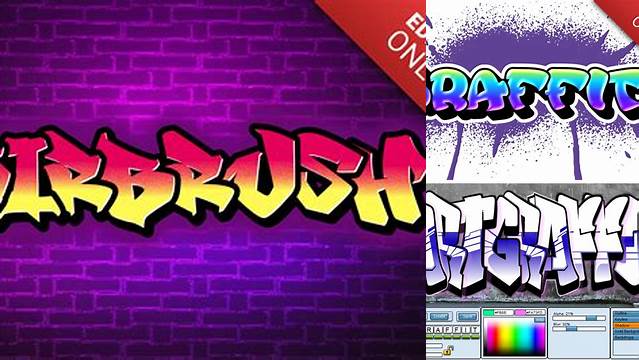
Free Graffiti Airbrush Font Generator: Create Awesome Text
Alright, guys, let's dive into the super cool world of crafting killer text with a free graffiti airbrush font generator! Whether you're a seasoned street artist, a design newbie, or just someone who digs the vibe, this is your go-to guide. We're talking about creating those rad, spray-paint-style fonts that scream attitude and style. No need to spend a fortune – we're focusing on the free options that deliver top-notch results. Get ready to level up your designs, social media posts, and maybe even your actual street art game. Let's get started!
H2: Unleashing Your Creativity: Why Use a Graffiti Airbrush Font Generator?
So, why bother with a graffiti airbrush font generator? Well, the answer is simple: it opens up a whole new realm of creative possibilities. Think about it – you're not just typing text; you're making a statement. Graffiti fonts have this inherent energy, this rebellious edge that can instantly grab attention. And with a generator, you don't need to be a skilled artist to achieve that look. You can create logos, posters, social media graphics, or even personalize your everyday items. The best part? It's incredibly versatile. You can use it for anything from creating a cool nameplate for your online persona to designing a killer flyer for a local event. It is also a time saver; instead of painstakingly hand-drawing each letter, a generator gives you instant results. This allows you to experiment with different styles and effects in seconds, letting your creativity flow freely. The strong aesthetic appeal is another key factor. Graffiti fonts bring a unique visual language, instantly injecting personality and visual interest into any project. Imagine the impact: a bland website transformed into a bold and vibrant showcase. A simple social media post that grabs attention with its distinctive flair. It's about expressing yourself uniquely. Furthermore, many generators offer customization options, allowing you to tweak your fonts. You can change colors, add drop shadows, adjust the size, and even simulate the airbrush effect's iconic spray paint. This level of control makes the generator an extremely powerful tool for everyone. It's about having fun, experimenting, and letting your creative spirit soar. So, why not give it a try? You have nothing to lose and a whole world of creative exploration to gain.
H3: The Allure of Graffiti Fonts: What Makes Them So Appealing?
What is it about graffiti fonts that just clicks? Why do they resonate so strongly with people from all walks of life? Let's get down to the nitty-gritty of what makes these fonts so captivating. Firstly, there's the raw, untamed energy they exude. These fonts aren't about polished perfection; they're about attitude. They have a boldness that demands attention. They embody a sense of rebellion and non-conformity that many people are drawn to. This is because graffiti has its roots in counter-culture, making it a symbol of resistance and individuality. Secondly, graffiti fonts often have a unique visual style that can't be found elsewhere. They are far from standard, cookie-cutter options, bringing a specific aesthetic that stands out. The dripping, the spray-paint effect, the sharp angles, and the bold outlines – these elements make them instantly recognizable and visually arresting. Graffiti fonts have transcended their origins. They are no longer confined to the streets, finding a home in the mainstream. They're used in advertising, graphic design, branding, and even fashion. This widespread adoption is a testament to their effectiveness and their ability to resonate with a broad audience. Ultimately, graffiti fonts offer a way to express yourself, to make a statement, and to stand out from the crowd. They are a celebration of individuality, creativity, and self-expression. They're a vibrant reminder that art can be found anywhere, and that anyone can be creative.
H2: Finding Your Perfect Font: Top Free Graffiti Airbrush Font Generators
Okay, so you're ready to find your perfect graffiti airbrush font generator, but with so many options, where do you start? Don't worry, I've got you covered. Here's a rundown of some top-notch free tools that will help you create those killer designs. Keep in mind that the availability and features of these generators might change, so it's a good idea to explore and see which one best suits your needs. Many of these tools are web-based, meaning you can access them directly from your web browser without any downloads or installations. This convenience makes them super accessible. They typically offer a user-friendly interface with simple controls for inputting your text and customizing the font. Most generators let you choose from a selection of pre-designed graffiti fonts, offering a quick way to achieve the desired look. Some also allow you to customize elements, like color, size, and effects like drop shadows. However, always pay attention to licensing. Some fonts may be free for personal use but require a license for commercial projects. If you are planning to use your creations for commercial purposes, always check the terms and conditions. Some popular options to explore include websites that offer downloadable fonts or dedicated online generators. The best tool is the one that inspires you, so don't be afraid to experiment and find your perfect match. Remember that there's no one-size-fits-all solution. The key is to find a tool that resonates with your style and helps you bring your creative vision to life.
H3: Evaluating Generator Features: What to Look For
So, you're on the hunt for a graffiti airbrush font generator, but how do you know which ones are the best? Let's break down the key features you should be looking for to ensure you get the most out of your creative endeavors. First and foremost, user-friendliness is key. The interface should be intuitive and easy to navigate, allowing you to quickly input your text and customize the font without a steep learning curve. The ideal generator will offer a variety of pre-designed graffiti fonts, giving you a solid starting point. The more options available, the better. It's even more impressive if the generator provides customization options. This allows you to tailor the font to your specific needs and preferences. Look for controls to adjust color, size, spacing, and effects like drop shadows or spray-paint textures. Consider the output options. Can you download the font as an image file (like PNG or JPG)? Ideally, you should be able to download the font in a format suitable for your projects, such as vector files (like SVG) for scalable designs. The generator's licensing is also important. Is the font free for personal or commercial use? Make sure you understand the terms and conditions. Check for additional features like the ability to save your designs or preview your work in various contexts. Some generators offer advanced features like animated effects or the ability to create custom font styles. Ultimately, the perfect generator is one that aligns with your needs, offers the features you want, and allows you to bring your creative vision to life easily. So, take your time, explore your options, and choose the tool that sparks your creativity.
H2: Diving Deeper: Customization Options and Creative Effects
Once you've got your graffiti airbrush font generator up and running, it's time to explore the exciting world of customization. It's not just about picking a font; it's about making it your own. Most generators offer a range of customization options that can transform your text from generic to genuinely unique. Color is an obvious place to start. Experiment with a vibrant palette, from classic spray-paint colors to bold, eye-catching hues. Consider using gradients or blending multiple colors for added visual interest. The size and scale of your text can also significantly impact the overall feel. Make it big and bold to grab attention, or adjust the proportions to fit your design. Spacing is another important detail. Tighten the spacing for a more compact look or spread the letters out to create a sense of movement. Next, consider adding effects. Drop shadows are a classic graffiti technique, creating a sense of depth and dimension. The right shadow can make the text pop off the page. Some generators offer more advanced effects, such as outlines, textures, or spray-paint effects. Don't be afraid to experiment. Blend different effects to see what works best. One often-overlooked customization option is the ability to use pre-made textures. This can replicate the feel of real-world graffiti. It's about exploring and finding what works best for your specific project. Embrace the possibilities, play around with different combinations, and most importantly, have fun.
H3: Mastering the Spray-Paint Look: Replicating Authentic Graffiti Styles
One of the key appeals of a graffiti airbrush font generator is its ability to authentically replicate the spray-paint aesthetic. Let's delve into how to achieve that realistic look and truly capture the essence of street art. The first thing is to examine the style of graffiti you want to achieve. Real graffiti comes in a wide array of styles. Some fonts are bold and blocky, while others are more elaborate and expressive. Research different artists and styles to inspire your work and tailor your choices. The realistic spray-paint effect is often characterized by several unique traits. These include soft edges, slight imperfections, and the illusion of depth. This is where customization options become crucial. Look for generators that allow you to add a subtle blur or feathering to the edges of your text to mimic the effect of spray paint. Drop shadows are key, creating the illusion that the letters are popping off the surface. Experiment with different shadow colors, angles, and opacities to achieve the right effect. Textures are also essential. Generators may offer built-in textures that simulate the gritty look of a wall or the imperfections of spray paint. If not, you can add textures in post-production using image editing software. Consider the color choices you make. Graffiti artists often use vibrant and contrasting colors to make their work pop. Pay attention to the details of how the paint would naturally behave. In real life, spray paint can drip, fade, and interact with the surface. Replicating these small imperfections will enhance the realism. Don't just stop at generating text; think about the context. Where would this graffiti be on the street? It's about embracing the imperfections, the boldness, and the unique character of street art.
H2: Putting It to Work: Project Ideas for Your Graffiti Fonts
Now that you're armed with your graffiti airbrush font generator and a knack for customization, let's get those creative juices flowing with some cool project ideas. There are a ton of exciting ways to use your newly created fonts. One of the easiest and most effective applications is for social media graphics. Design eye-catching posts for Instagram, Facebook, or other platforms to grab attention and make your content stand out. A bold graffiti font can be used to create captivating profile pictures, banners, or even quote cards. Next, think about posters and flyers. Design promotional materials for events, concerts, or anything that needs to get noticed. Graffiti fonts are perfect for conveying a sense of energy, excitement, and street-level authenticity. If you're passionate about music, consider designing album covers or promotional artwork. Graffiti fonts can capture the rebellious spirit of rock, hip-hop, or electronic music. Create unique invitations for parties or special occasions. The bold and distinctive look of graffiti fonts can inject a sense of fun and personality into your invitations. Beyond the digital realm, consider using your fonts for physical projects. Print your designs on t-shirts, mugs, or other merchandise. It is another awesome opportunity. You can also design stickers, stencils, or wall art for your room or workspace. Graffiti fonts are perfect for personalizing your space. Experiment with mixing your fonts with different art forms. This will allow you to explore more project opportunities. You can combine your graffiti fonts with photography, illustration, or other graphic design elements to create unique and visually stunning compositions. From social media to merchandise to physical art, the possibilities are nearly endless. Let your imagination run wild, experiment with different ideas, and bring your creative vision to life.
H3: Social Media Domination: Creating Engaging Content with Graffiti Fonts
Alright, social media gurus, it's time to level up your game with the power of graffiti fonts. Using these fonts can be a game-changer in a world where attention spans are short and competition is fierce. The first step is to identify your target audience and tailor your font choices and designs to resonate with them. Consider the platform you're using. Instagram is highly visual, so experiment with bold and eye-catching designs. Twitter is all about quick, impactful messages, so create short, punchy text snippets. Facebook allows more detailed graphics, so you have more space to experiment. A striking profile picture is a must. Design a unique profile image that uses a graffiti font to represent your brand or personality. This will make you instantly recognizable. Utilize the fonts for quotes and motivational messages. Choose inspiring quotes and pair them with visually appealing fonts to create content that resonates with your audience and encourages engagement. Create compelling text-based graphics for your posts. Design visually appealing graphics, using graffiti fonts to add impact and make your content more shareable. Don't forget to use them to create branded content. Use your graffiti fonts to create consistent branding across all your social media platforms, strengthening your brand identity. Stay on top of social media trends. Always stay updated with the latest trends, memes, and challenges. Graffiti fonts are a great way to participate in these trends and increase your visibility. The goal is to create content that is both visually appealing and informative. By experimenting with fonts, colors, and effects, you can make your social media presence more engaging and memorable. Embrace the power of creativity and use graffiti fonts to make a real impact on social media.
H2: Beyond the Basics: Advanced Techniques and Tips
Ready to push your graffiti airbrush font generator skills to the next level? Let's dive into some advanced techniques and tips to take your designs from good to amazing. First, consider the overall composition of your design. Don't just focus on the text; think about how it interacts with the other elements in your design. Play with the layout, the placement of the text, and the use of space. It is important to have a well-balanced composition that directs the viewer's eye and creates a sense of visual harmony. Another great idea is to create custom textures. While some generators offer built-in textures, you can achieve even more unique results by creating your textures using other design tools, like image editors. Add textures like spray-paint splatters, drips, or worn textures to enhance the realism of your design. Don't be afraid to mix and match. Combine your graffiti fonts with other font styles to create a more interesting design. You can use a more classic font for the body of your text and a graffiti font for headings or emphasis. Embrace the versatility that generators offer by experimenting with different color combinations. Combine bold and vibrant colors with subtle and complementary colors. Try creating gradients and blending techniques. The use of color is a powerful design element that can create a mood. Experiment with different effects and blending modes. Add drop shadows to your text to create a sense of depth and dimension. Experiment with outlines and strokes, and play with blending modes to create unusual effects. Always be creative and think outside the box. Learn from other artists and designers. Analyze designs you admire and try to understand how they use graffiti fonts and design elements. There are tons of tutorials online that can help you enhance your skills.
H3: Combining Graffiti with Other Design Elements: Layering and Composition
Once you've mastered the basics of your graffiti airbrush font generator, it's time to explore the exciting world of layering and composition. It's all about combining your font creations with other design elements to create truly captivating visuals. Think of it as building a visual sandwich. The graffiti font is the main ingredient. Layering is the process of combining multiple elements to create depth and visual interest. This means adding backgrounds, images, textures, and other design elements to your font to create a well-rounded composition. Start by choosing a background. You can use a solid color, a gradient, or an image to set the scene for your design. Then, add your graffiti text on top. Experiment with different sizes and positions to find the perfect placement. Use other design elements to add visual interest and depth. Use images, shapes, or textures to provide additional context. Consider adding a subtle texture to create a more authentic feel. Experiment with different blending modes to create interesting effects. Blending modes allow you to mix and match your elements to create a unique look. Remember that the goal of composition is to guide the viewer's eye through the design and communicate your message effectively. This can be achieved with a simple design that conveys a clear message. Take your time, experiment with different combinations, and don't be afraid to break the rules. With practice and experimentation, you'll be able to create stunning designs.
H2: Troubleshooting and Common Issues with Font Generators
Even the coolest graffiti airbrush font generators can sometimes throw you a curveball. Let's troubleshoot some common issues you might encounter and how to fix them so you can keep creating amazing designs. The first thing to check is the font rendering. Sometimes, the font might not appear correctly in your chosen software or platform. Double-check the font file format (OTF, TTF, etc.) and make sure it's compatible with your software. Some generators are web-based and the fonts you create will be in image format. Consider the file size and resolution of the image you create. Make sure the resolution is suitable for your project. If your text looks blurry or pixelated, increase the resolution or download the file in a higher quality format. Problems with customization are another common issue. You might find that the generator doesn't offer the customization options you need or that the controls are difficult to use. If you're not satisfied with the customization options, try a different generator. Some generators also have bugs. It is always good to report the issue to the developer. If your generator is slow or unresponsive, check your internet connection. If that's not the problem, try clearing your browser's cache and cookies. Another common problem is licensing. Always make sure you understand the licensing terms. Some fonts are only free for personal use. Make sure you are using the generator in compliance with its rules. It is crucial to keep experimenting. Use different options to enhance the quality of the font you generate. When you face a problem, it is essential to remember that practice makes perfect. Remember that persistence is key.
H3: Resolving Font Display Issues: Ensuring Your Text Looks Great Everywhere
Let's address the nitty-gritty of ensuring your awesome graffiti airbrush font generator creations look fantastic, no matter where they're displayed. Font display issues are probably the most common. The first thing to check is the font format. Make sure it's compatible with the software or platform you're using. If you're using a downloaded font, check if you have the right file type (OTF, TTF, etc.) installed. Then, consider the software or platform's rendering capabilities. Some older programs or platforms may not support the latest font features. If your text appears blurry or pixelated, this could be due to a few things. Ensure that the font's resolution is high enough, particularly for large displays. You can always increase the resolution in the generator, before downloading. Also, make sure the font is installed correctly on your system. Always check if the font is not corrupted or broken. If possible, try reinstalling the font. Then, you can consider the software's settings. Check the text rendering settings. The settings influence how your text will appear on the display. Adjust the settings to ensure that the text looks smooth. Lastly, if you're working on web design, keep in mind that the font will render on the user's browser. You can use CSS to ensure that your font is displayed correctly. Sometimes, using web-friendly font formats, like WOFF and WOFF2, will improve performance. Remember that testing is essential. Preview your text in various settings to guarantee that it looks flawless on any platform or screen. It all boils down to paying attention to the details and making sure that your creative vision is perfectly displayed.
H2: From Concept to Creation: A Step-by-Step Guide
Okay, let's break down the entire process, from having an idea to creating the perfect text with your graffiti airbrush font generator. It all begins with an idea. Define what you want to create. What is the message you want to convey? Who is your target audience? What style of graffiti are you aiming for? Research and gather inspiration. Find examples of the style of graffiti you want to replicate. Look at other designs, artists, and even real-world graffiti. Next, it is time to select a generator. Choose a free generator that offers the features you need, such as a variety of fonts, customization options, and export options. Enter your text into the generator. Most generators have a field where you can simply type in the text you want to generate. Next, customize your font. Use the generator's features to change the font, colors, and add effects like drop shadows or spray-paint textures. Preview your design. Make sure the text looks right before downloading the design. Many generators provide a preview mode. This helps you see what your font will look like on different backgrounds. Finally, download and use your design. Download your font in a format that is compatible with your project. You can then use it for social media, posters, or any other design project. Remember that the process is iterative. You may need to go back and make adjustments to your design until you're happy with the final result. Start with an idea, do your research, choose the right tools, experiment with different options, and don't be afraid to refine your design. By following these steps, you can bring your creative vision to life and start creating stunning graffiti fonts.
H3: Maximizing Your Free Generator: Tips for Efficiency and Quality
Let's ensure you get the most out of your free graffiti airbrush font generator and create high-quality designs efficiently. Firstly, define your goals. Before you start, have a clear idea of what you want to create. Knowing what you are after will help you choose the best generator. Plan your text in advance. Write down the exact text you want to use before you begin. This will help you avoid making changes. Explore different generators. Try different generators to see which ones offer the features and styles that best suit your needs. Familiarize yourself with the interface. Spend some time getting to know the controls. This will help you be able to create your designs more quickly. Experiment with customization options. Don't be afraid to try out different colors, sizes, and effects. Experiment to find what you like. Save your work regularly. Make sure you save your design as you work so you don't lose any progress. Learn from others. Look at other designs and try to understand how they achieve the visual effects you like. Take advantage of the resources available. Most free generators also provide tutorials, documentation, or FAQs to guide you through the process. Most importantly, be patient and persistent. This is a process, and it can take time to master your craft. Don't be discouraged if your first attempt isn't perfect. Practice regularly, and you'll get better. With these tips, you can create stunning graffiti fonts using free generators.
H2: Legal Considerations: Copyright and Usage Rights
While having fun with a graffiti airbrush font generator is awesome, it's super important to be aware of the legal side of things. Copyright and usage rights are important considerations, so let's break down some key points. Firstly, understand the licensing terms. When you use a font, it's crucial to understand the license that governs its usage. This includes where you can use it and how you can use it. Always check the license agreement for each font you use. Some fonts are free for personal use but require a commercial license. If you plan to use a font for commercial purposes, such as for a business or for profit, you will likely need to purchase a license. Avoid infringement. When using fonts, respect the copyrights of the font creators. Don't use fonts illegally. Always ensure you have the appropriate license for the font you're using. Some fonts may be trademarked, so be careful not to use a font in a way that infringes on another's trademark. Attribute the font creator when necessary. If the license requires it, always give credit to the font creator. This can be as simple as including the font name in your design. Be informed. Stay informed about copyright law and intellectual property rights. The rules around copyright and usage can change over time. There are often resources available online that can provide the most current information. If you're unsure about anything, it's best to seek legal advice. Ignoring these legal considerations can lead to severe consequences. By understanding and respecting these legal considerations, you can create designs with confidence. Legal compliance ensures that you are using the fonts in a responsible and ethical manner.
H3: Navigating Licensing: Understanding Free vs. Commercial Use
Let's clarify the often confusing waters of font licensing. The biggest distinction when using your graffiti airbrush font generator creations is between free and commercial use. This understanding is key to using your fonts legally and ethically. Free for personal use licenses generally allow you to use the font for non-commercial projects. This means you can use it for personal projects. It might be used for creating social media graphics, or designing a personal website. However, you typically cannot use these fonts for commercial purposes, such as creating logos for businesses, designs for products, or for any project where you're making money. If your font usage involves making money, you will generally need a commercial license. A commercial license grants you the right to use the font in commercial projects. It allows you to use the font for logos, branding, marketing materials, and more. Commercial licenses often come with additional terms, such as limitations on the number of users or the number of projects you can use the font in. Some fonts offer different license tiers, each with different pricing. Make sure to carefully read the license agreement. This will help you understand the specific terms and conditions for your use. You may need to purchase a license. Font foundries and designers depend on the sale of commercial licenses to keep creating new fonts. Supporting these artists will allow them to keep creating cool fonts. The key is to always be aware of what you're allowed to do. Always check the license of each font you are using before you use it. Make sure that your use aligns with the conditions. Understanding the licensing is crucial for a smooth and legally sound creative process. You'll be able to use your fonts to their full potential.
H2: Community and Resources: Learning and Sharing Your Work
Ready to connect with other graffiti font enthusiasts? Let's explore the vibrant community and resources available to help you learn, grow, and share your awesome work with others. One of the best ways to level up your skills is to participate in online forums and communities dedicated to graphic design. Engage in discussions, ask questions, and share your creations. This is a great opportunity to learn from more experienced designers. It is a great place to connect with other people with a shared passion. Next, consider exploring online tutorials and resources. There are tons of great online resources that can help you master your graffiti airbrush font generator skills. YouTube is another great resource for video tutorials, design tips, and inspiration. Watching videos can be a great way to develop skills. Explore font design blogs and websites. Many blogs and websites are dedicated to graphic design, typography, and font design. You can learn about trends, design concepts, and cool fonts. Share your work. Participate in online design challenges. Sharing your work will provide you with exposure and feedback. You can learn a lot. Embrace the community. Connect with other people who are passionate about graffiti fonts. This will help you to grow. Embrace the design community and use it to enhance your creativity. Make the most of the knowledge and experience of others.
H3: Showcasing Your Creations: Platforms and Portfolios
Now that you've created some amazing designs with your graffiti airbrush font generator, it's time to show them off to the world! Let's look at some of the best platforms and ways to showcase your work. Create your online portfolio. A website is your virtual storefront. Use platforms like Behance, Dribbble, or your own website. Highlight your best projects and explain the process behind your creations. Curate your portfolio carefully. Only show your best work to make a strong impression. You can use a specific design style to showcase your work. Use social media to promote your work. Instagram, Twitter, and Facebook are great places to share your designs. Post regularly. It is a great way to engage with your audience. Don't forget to use relevant hashtags. This helps to increase your visibility. Consider entering design contests. Contests provide an opportunity to showcase your skills and gain recognition. You will also receive feedback on your designs. Collaborate with other designers. Working with other creatives can lead to new opportunities. Collaboration helps you expand your network. Participate in online communities. There are a number of online communities where you can share your designs. Get feedback and learn from other designers. Showcase your work. By sharing your designs, you can gain valuable feedback, build your portfolio, and connect with other creatives. Embrace the opportunity to showcase your work. Building your portfolio is a continuous process. Keep learning, experimenting, and refining your skills. With a well-curated portfolio, you can open the door to exciting opportunities in the world of graphic design.